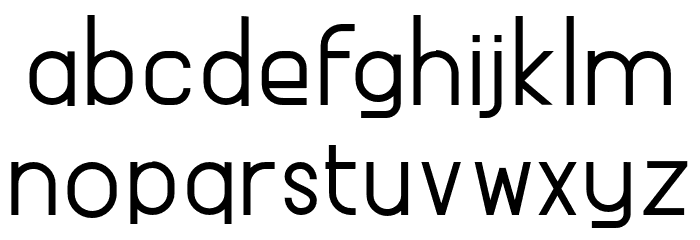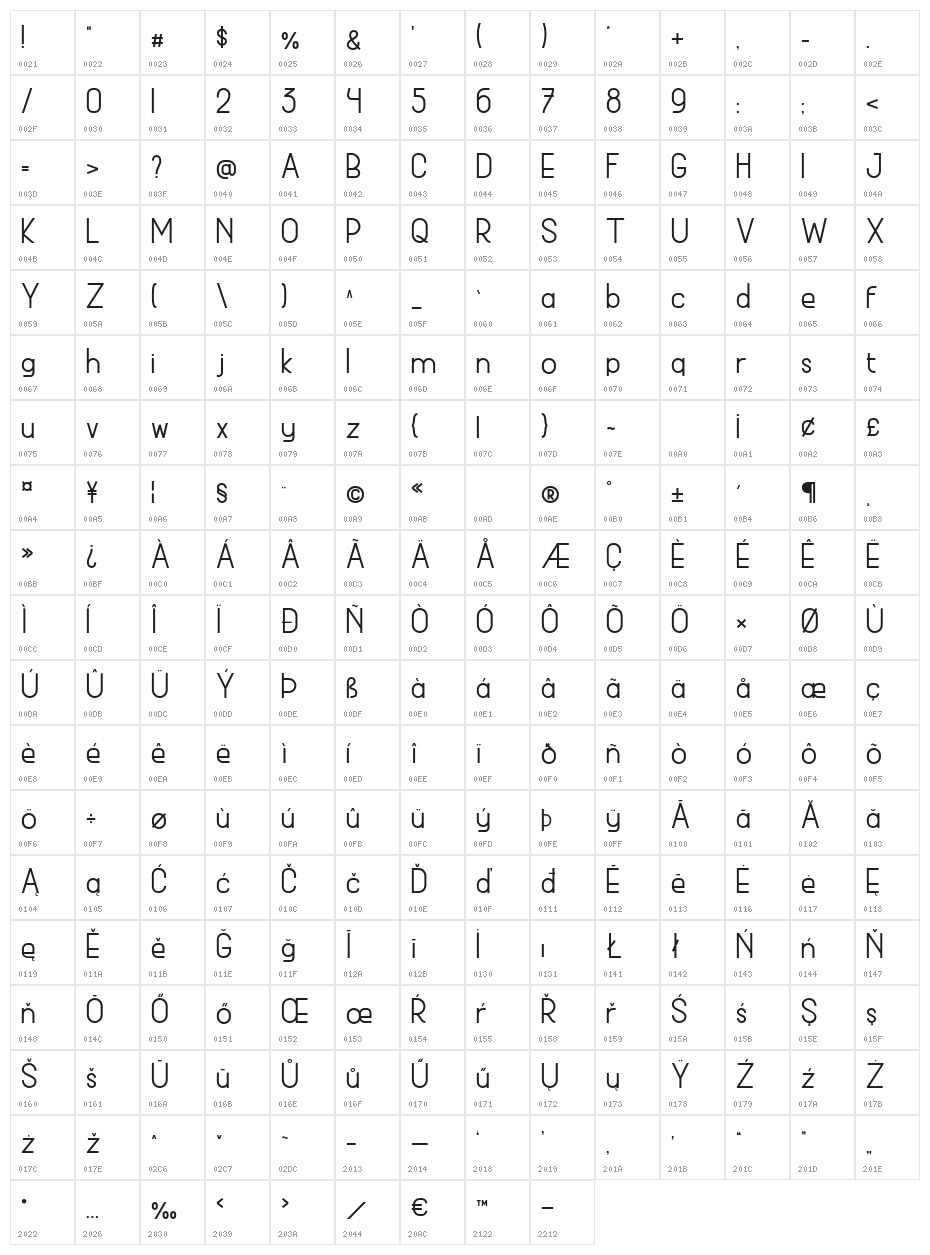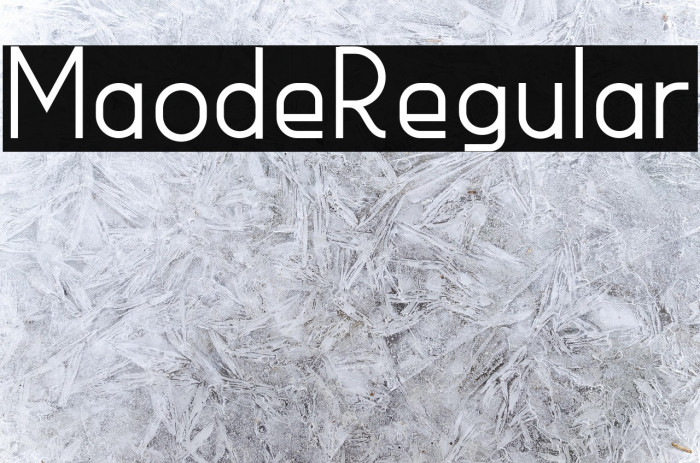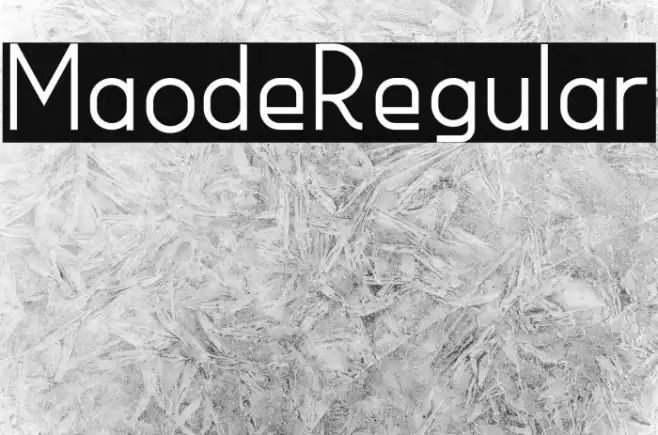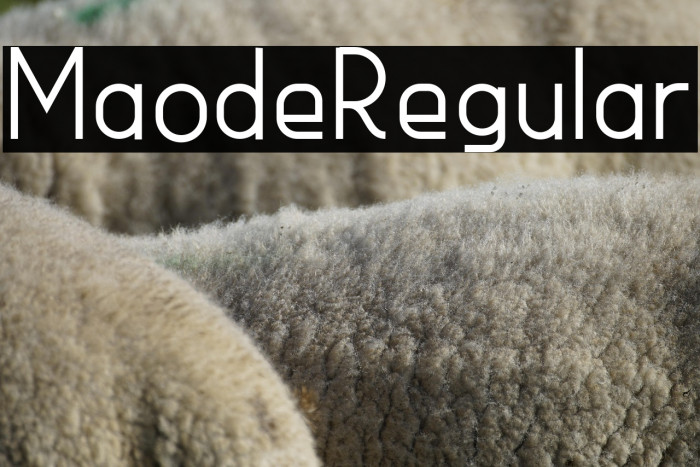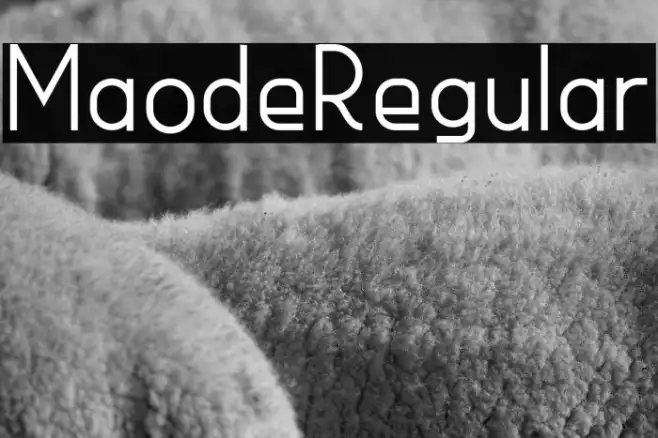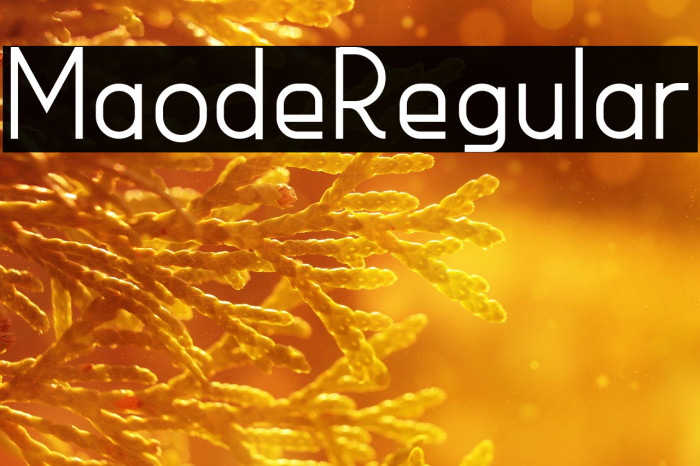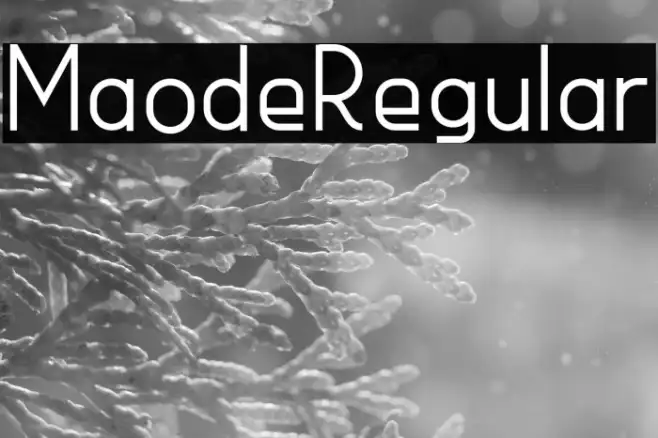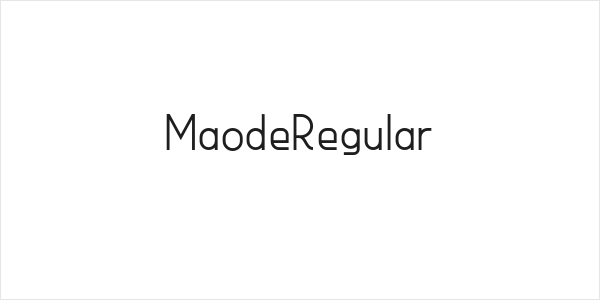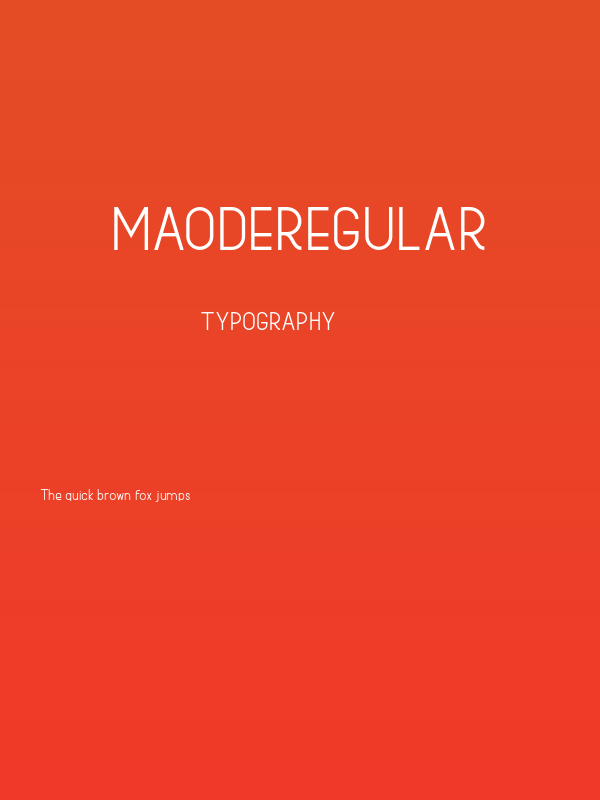
MaodeRegular Font
This font features a clean and modern sans-serif design with a geometric structure. The characters are evenly spaced with a consistent stroke width, giving it a balanced and harmonious appearance. The uppercase letters are tall and slightly narrow, while the lowercase letters maintain a uniform height, enhancing readability. The numerals are distinct and clear, making them suitable for various applications. Special characters are well-integrated, maintaining the overall aesthetic. This font's simplicity and clarity make it versatile for both digital and print media.
A modern, geometric sans-serif font with clean lines and balanced spacing.
- Proposed Projects: Ideal for branding, web design, editorial layouts, and signage due to its clarity and modern appeal.